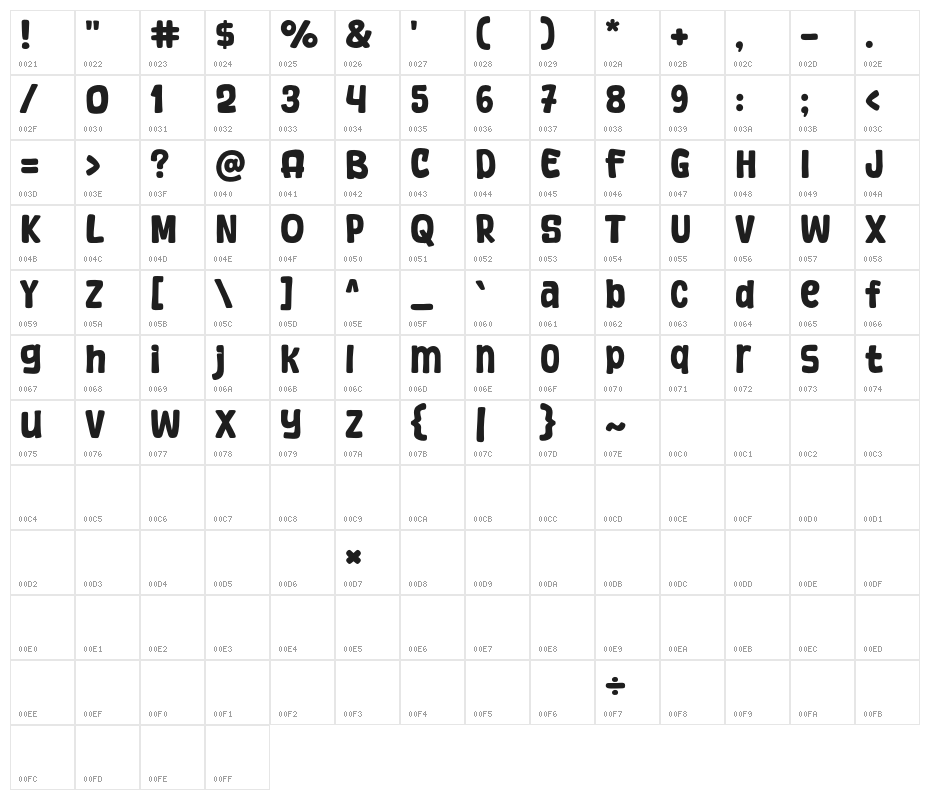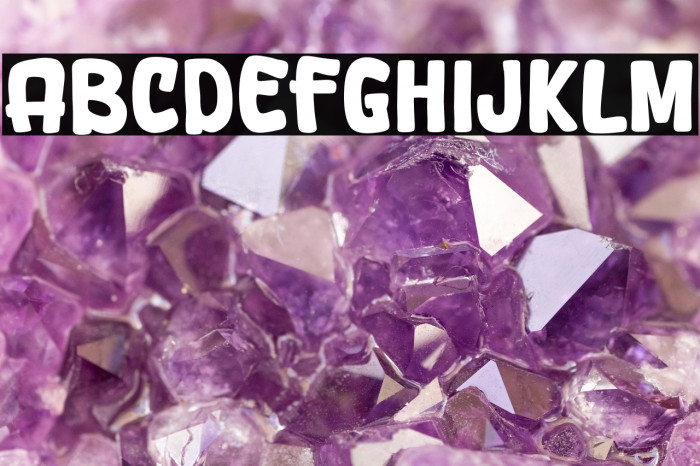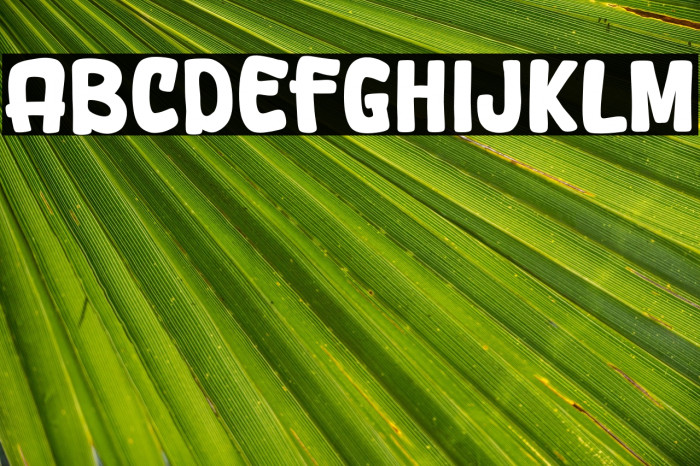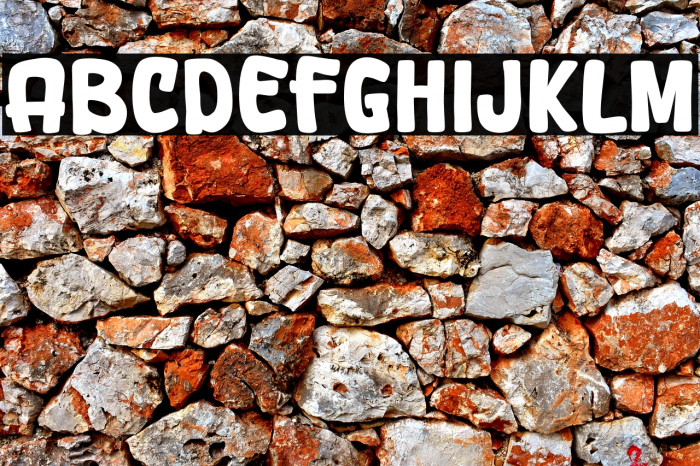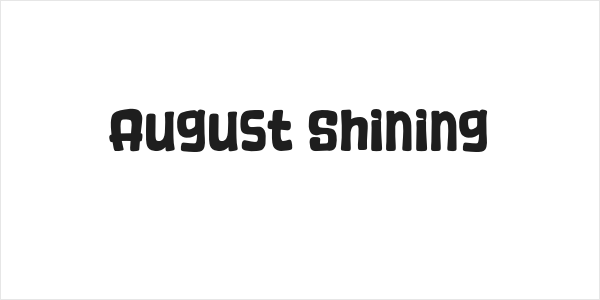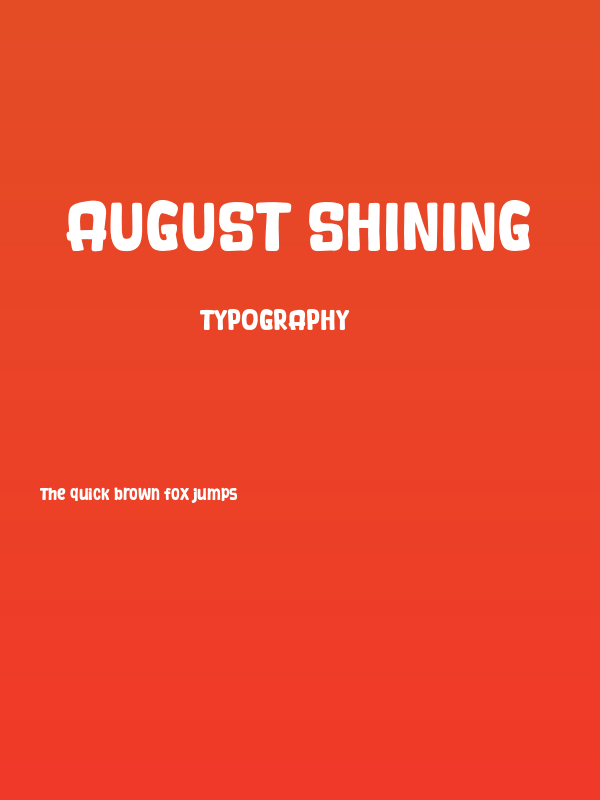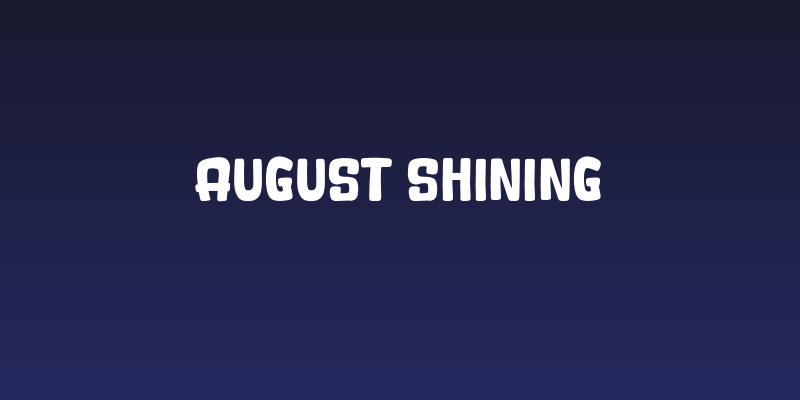
August Shining Font
August Shining Description
A bold, playful font with rounded edges and a slightly irregular, hand-drawn appearance.
| Overall Style | Playful, Casual |
| Proposed Projects | Children's books, playful branding, casual posters. |